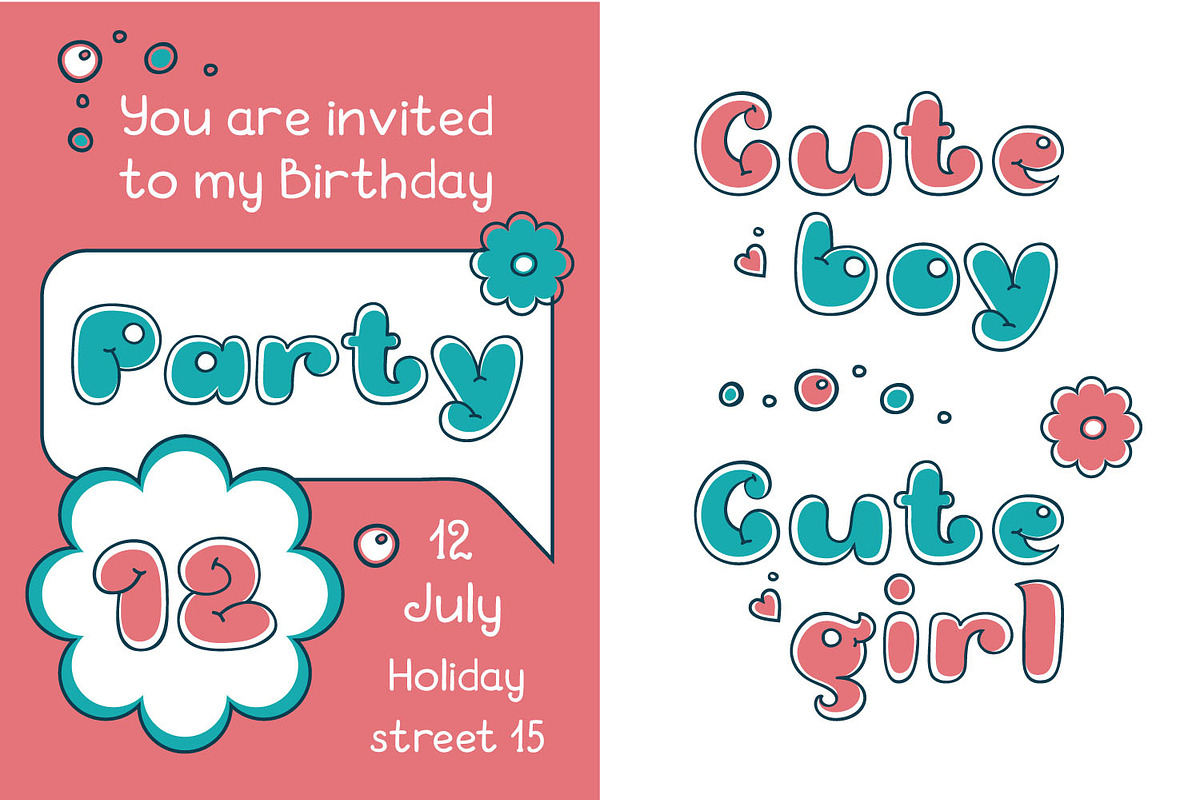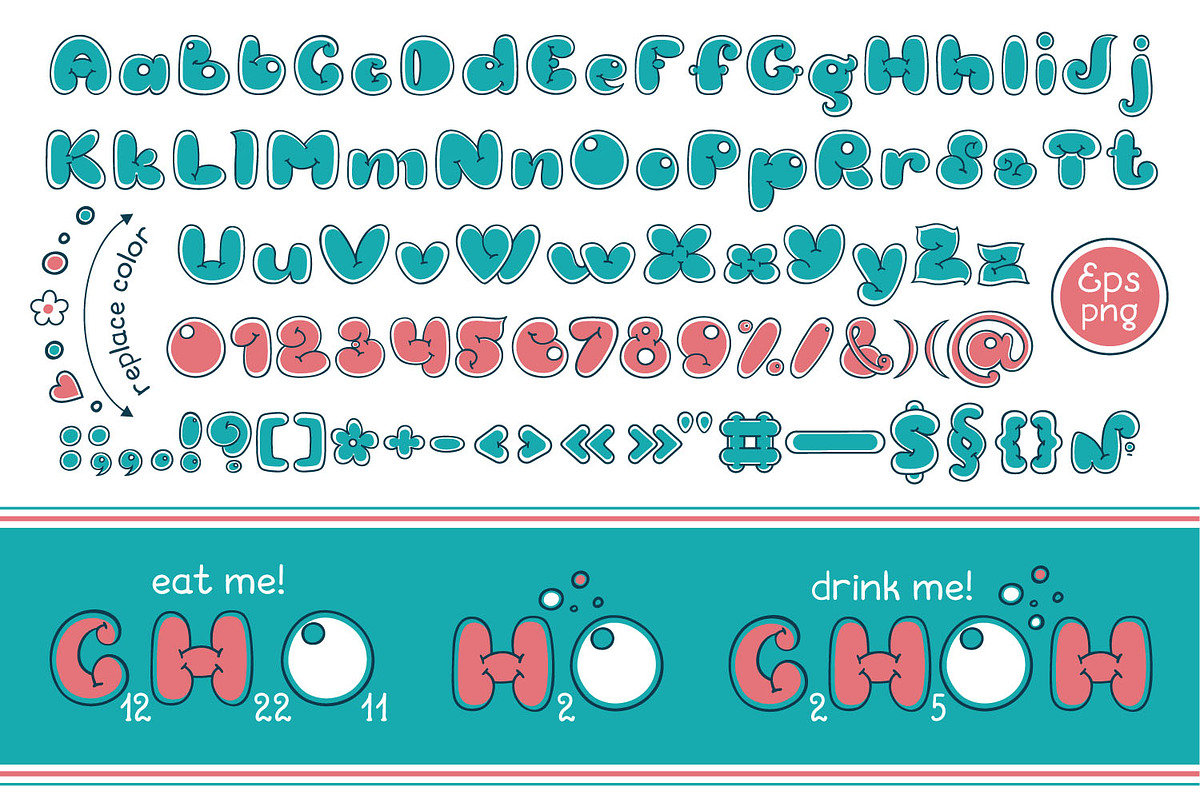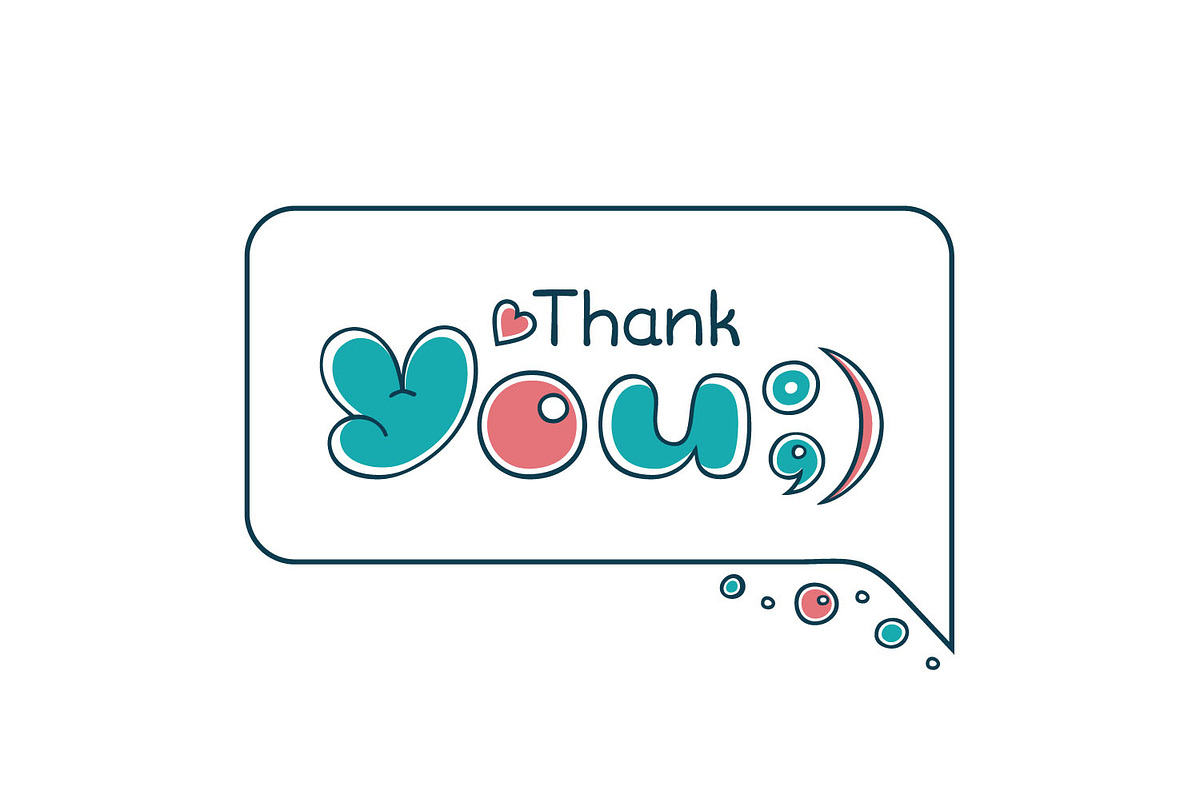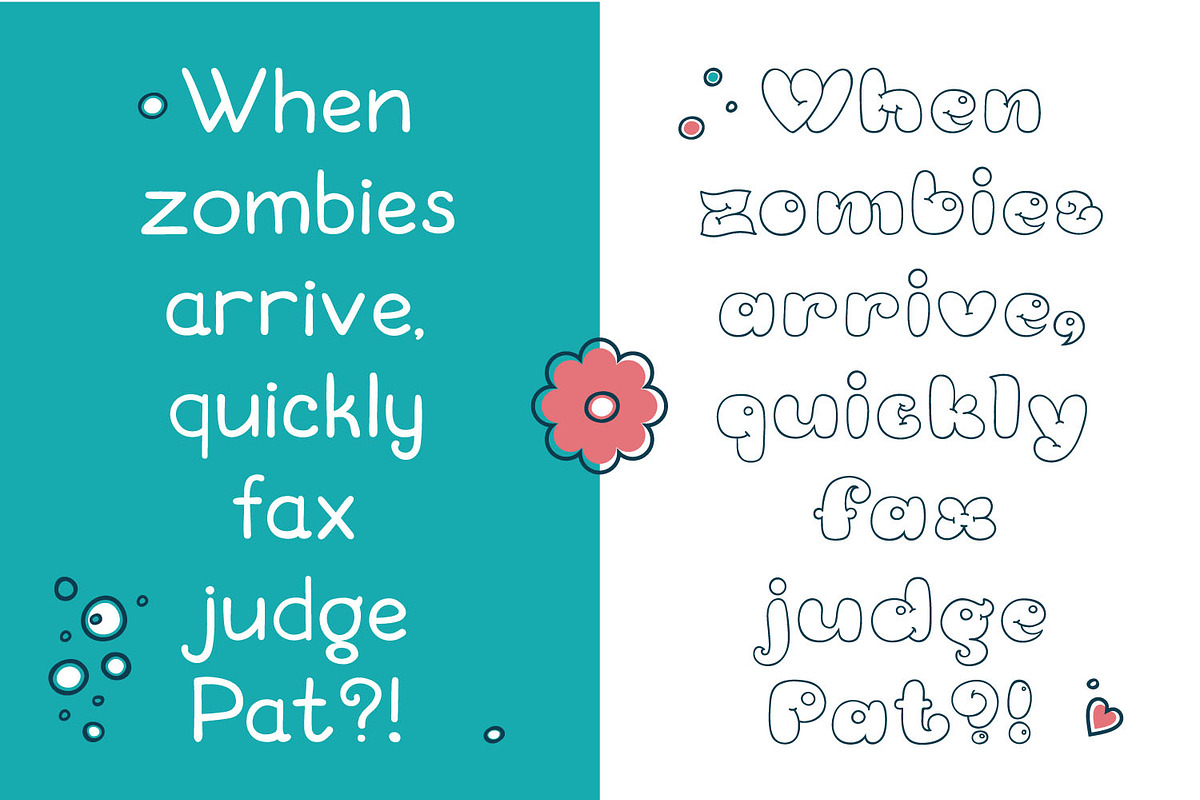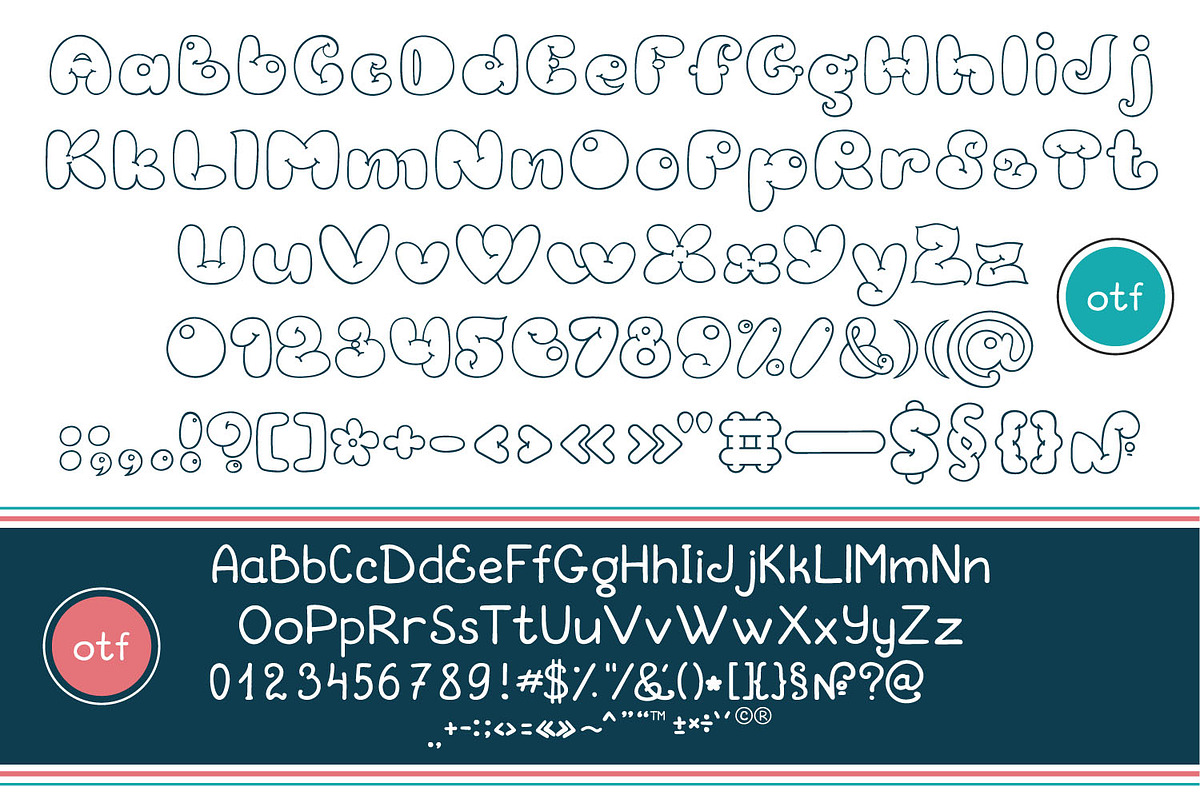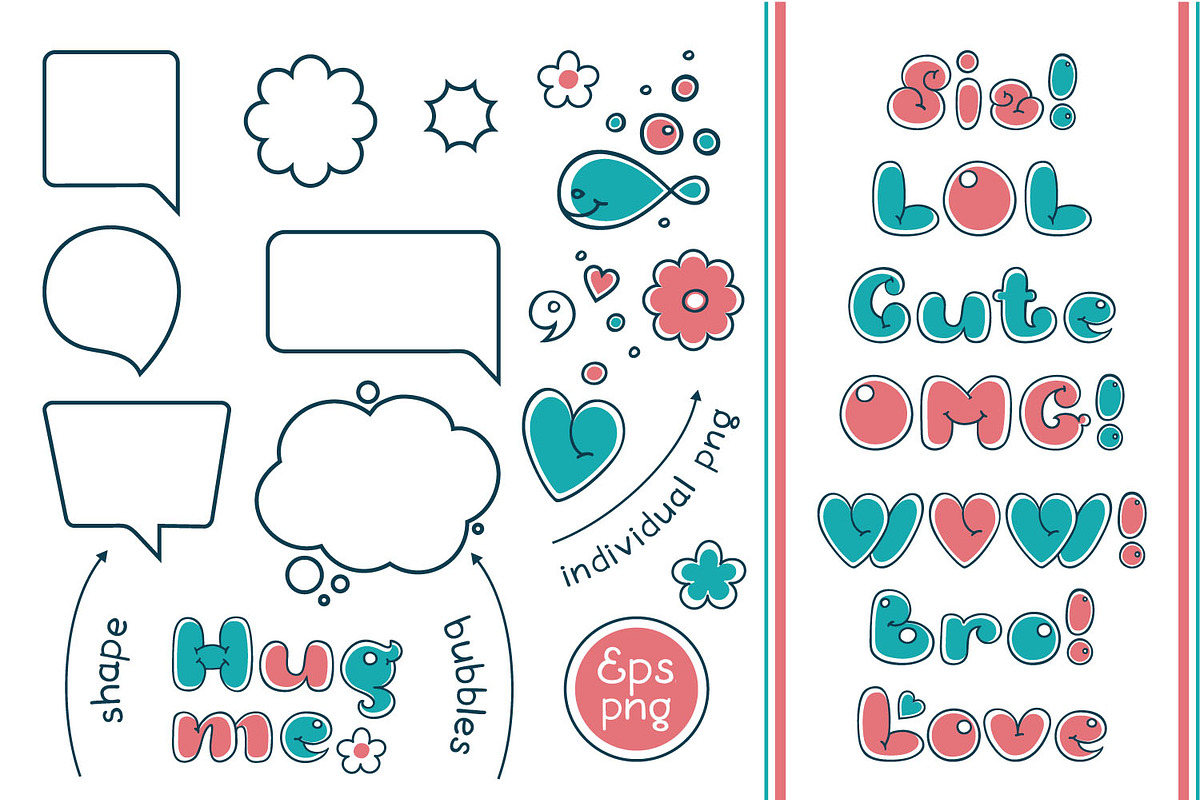
Bubble Double Duo font. Comic Alphabet.
Handwritten calligraphy lettering for phrase and quotes. Vector design elements. Display cartoon font.
Graffiti comics style font. Vector alphabet
Comic retro font set. Alphabet letters & number in style of comics, pop art for title, headline, poster, comics, or banner design. Cartoon typography collection. Letters and figures for decoration of kids' illustrations, websites, posters, comics and banners.
Perfect for children's invitations, birthday cards, phrases and quotes, print on textiles and t-shirts, for school office items.
Sale Bubble Double Duo font by Zoya Miller fits naturally into Branding, posters, packaging, typography.